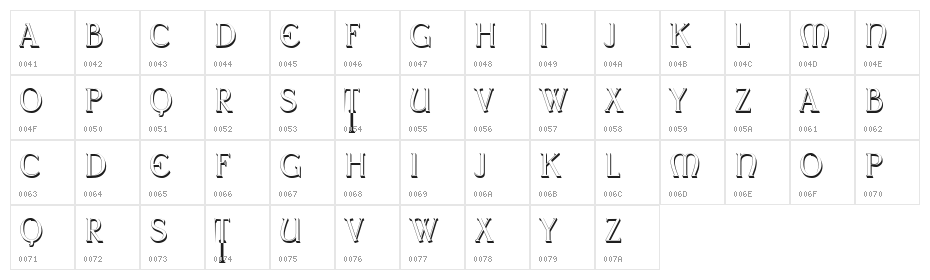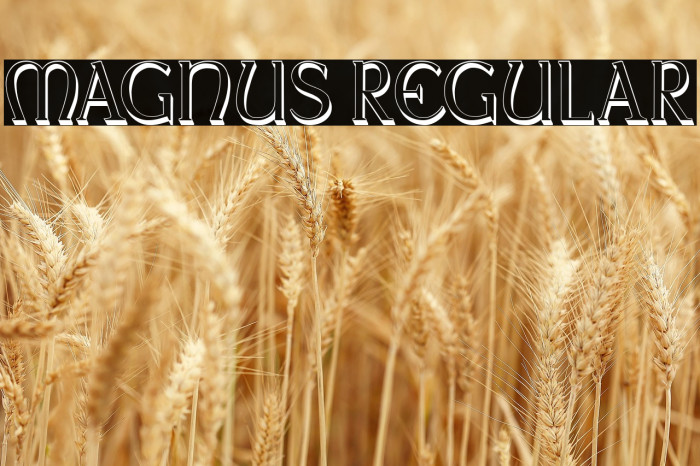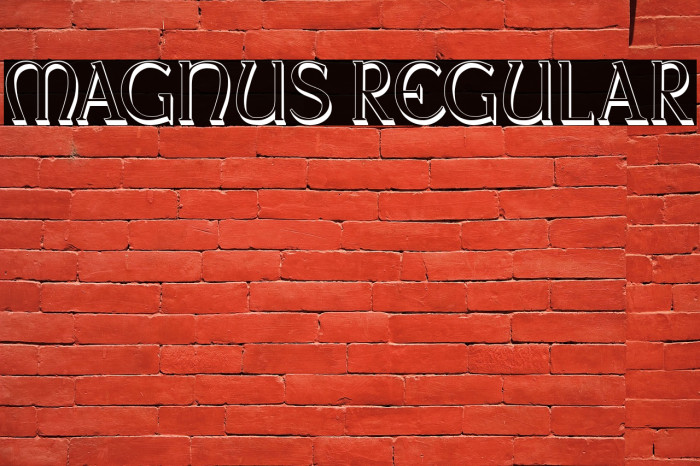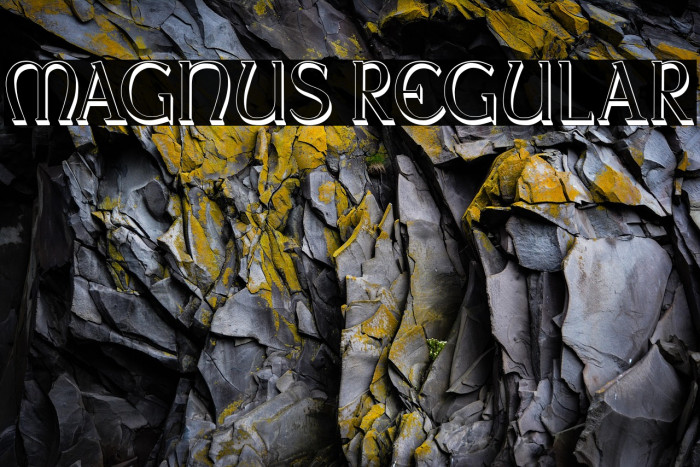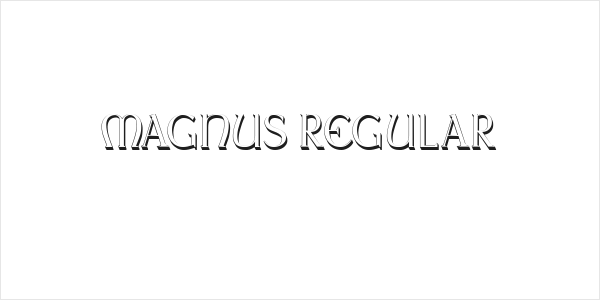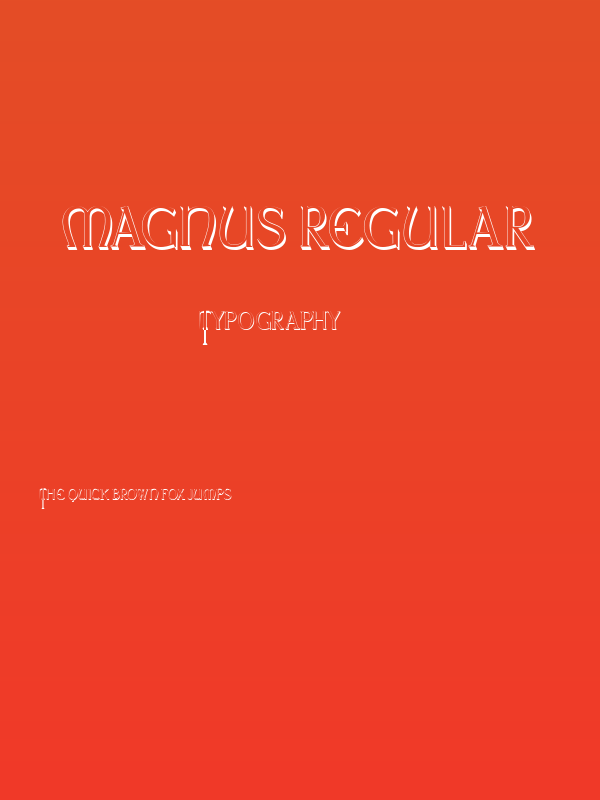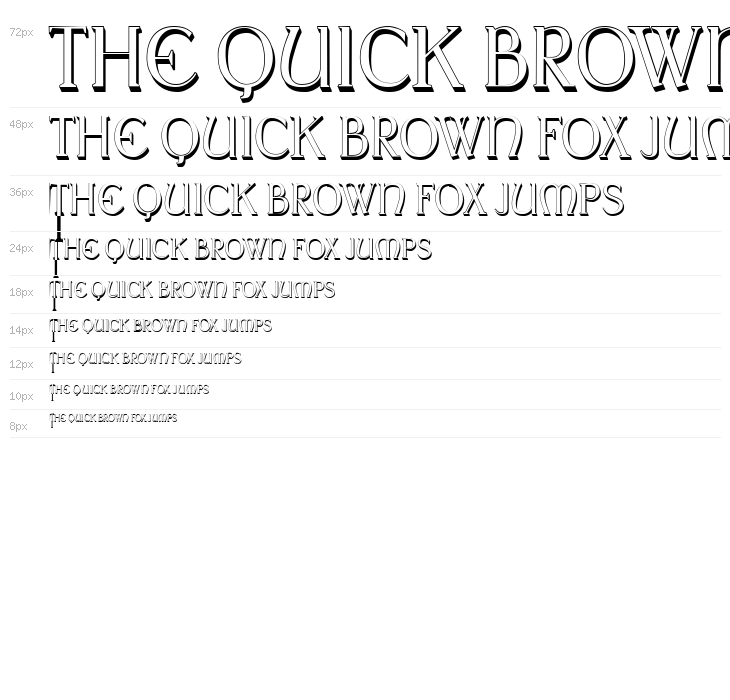
Magnus Regular Font
This font features a bold and striking design with a three-dimensional effect, achieved through the use of shadowing and outlines. The characters are uppercase only, with a strong geometric structure that gives them a modern and impactful appearance. The font's style is reminiscent of classic serif fonts but with a contemporary twist, making it suitable for attention-grabbing headlines and titles. The letters are evenly spaced, providing a balanced and cohesive look. The contrast between the thick and thin strokes adds to the font's dynamic and bold aesthetic.
| Proposed Projects | This font is perfect for projects that require a strong visual impact, such as posters, banners, and branding materials. Its bold style makes it suitable for logos and titles that need to stand out. |